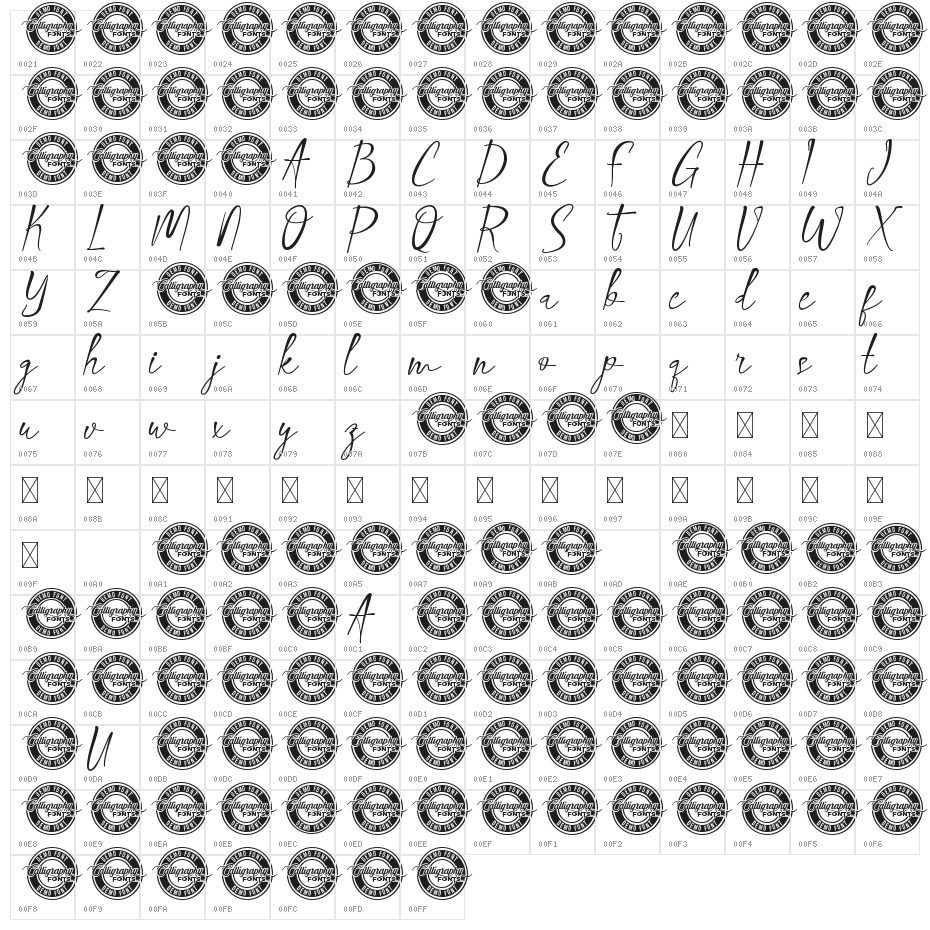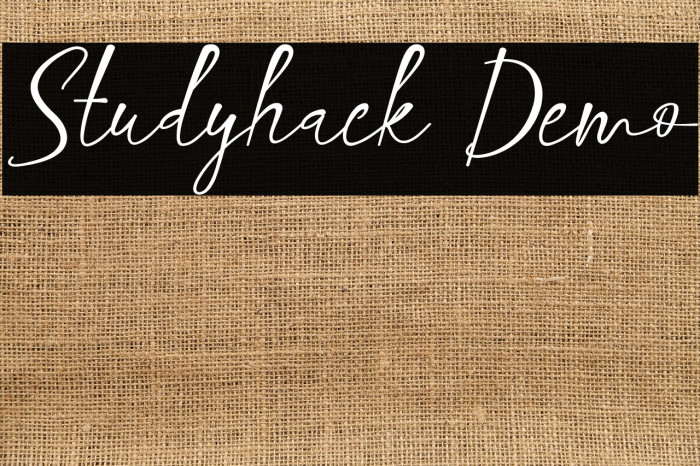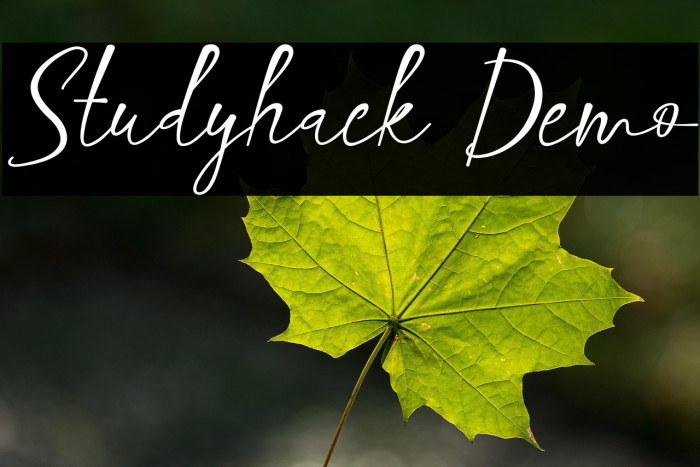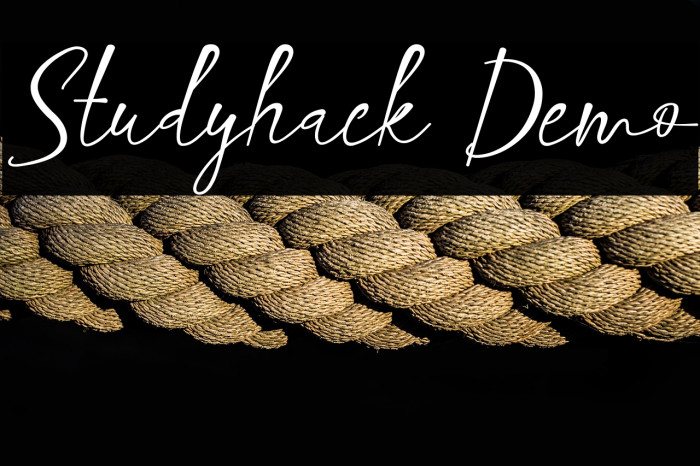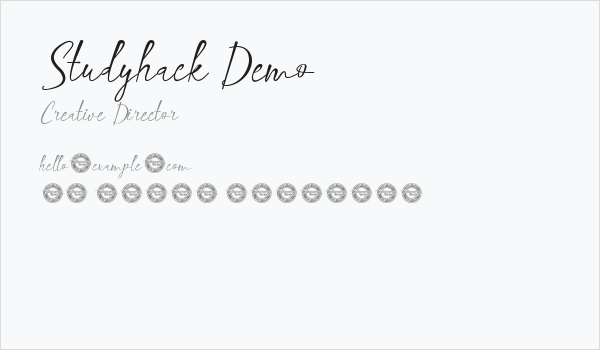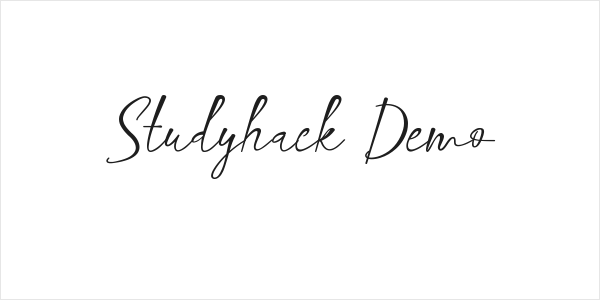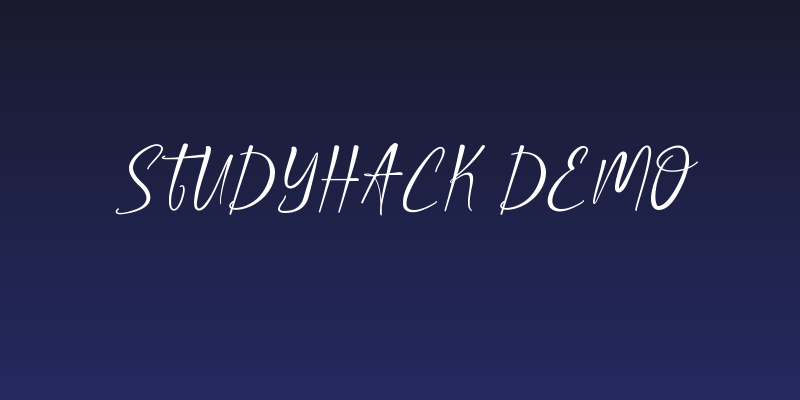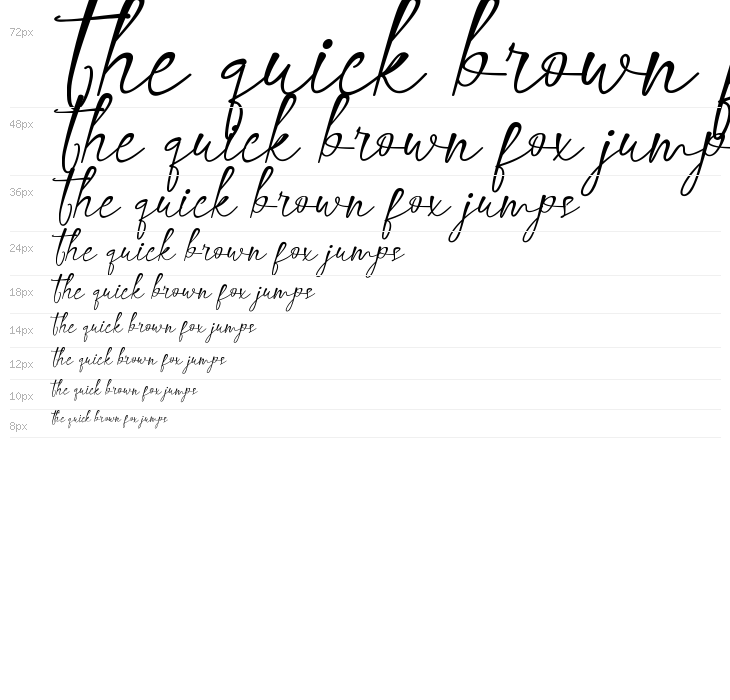
Studyhack Demo Font
Studyhack Demo Description
This font features a flowing, cursive style that exudes elegance and sophistication. The uppercase letters are tall and slender, with graceful curves that give them a sense of movement. The lowercase letters are more compact, maintaining the same fluidity and connectedness, which is characteristic of script fonts. The strokes vary in thickness, adding a dynamic quality to the text. This font is reminiscent of traditional calligraphy but with a modern twist, making it versatile for various design applications. The overall appearance is both stylish and approachable, suitable for projects that require a personal touch.
| Use Case | Logos, Invitations, Greeting Cards |
| Proposed Projects | Ideal for wedding invitations, greeting cards, branding, and logo design. |